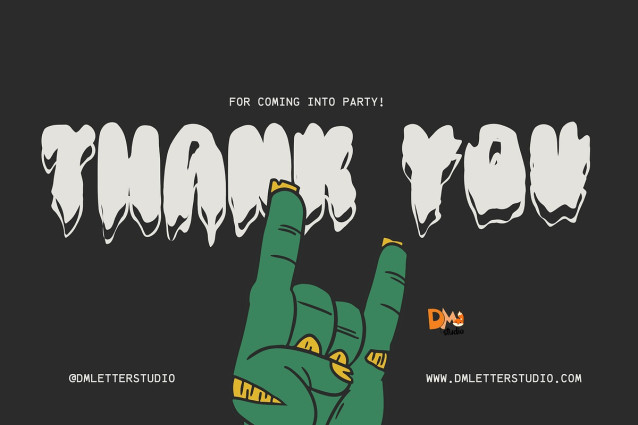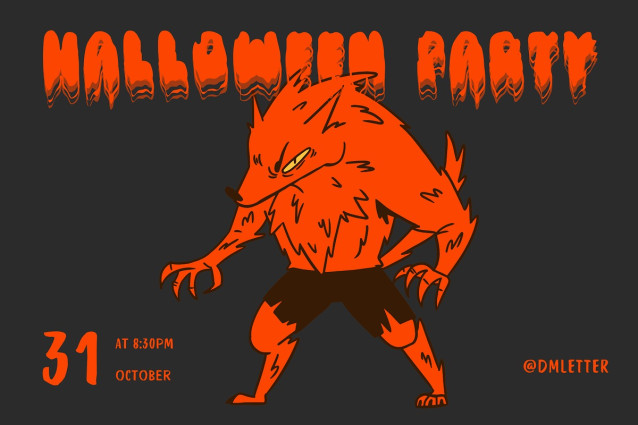
Halloween Melted Font
Halloween Melted Font – a spine-chilling and gooey typeface perfect for all your spooky season needs! This dripping, horror-inspired font brings eerie vibes and a creepy-cool aesthetic to your designs. Whether you’re working on Halloween party invitations, horror movie posters, spooky merchandise, or themed branding, this font will ooze personality and frightful charm.
With its dripping melted effect, the Halloween Melted Font creates a ghostly atmosphere that is both playful and terrifying, making it an ideal choice for Halloween and horror-related projects.